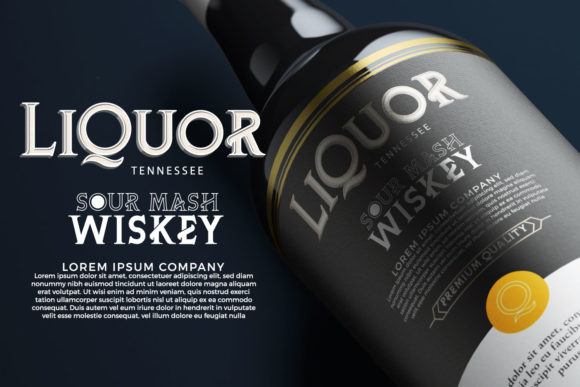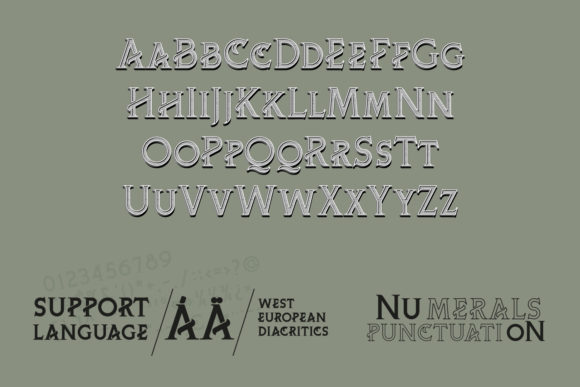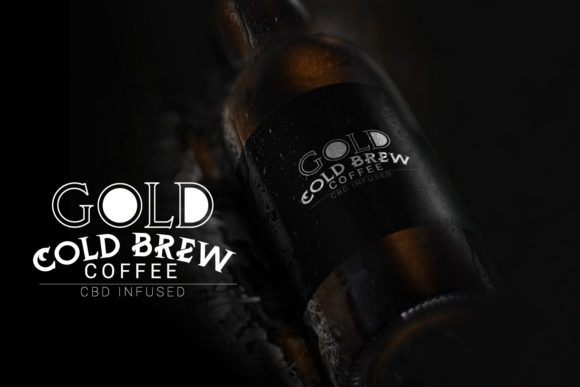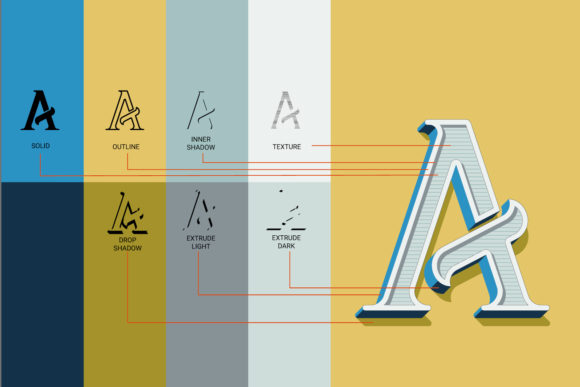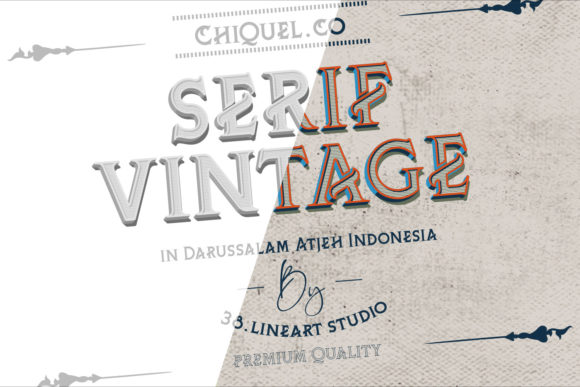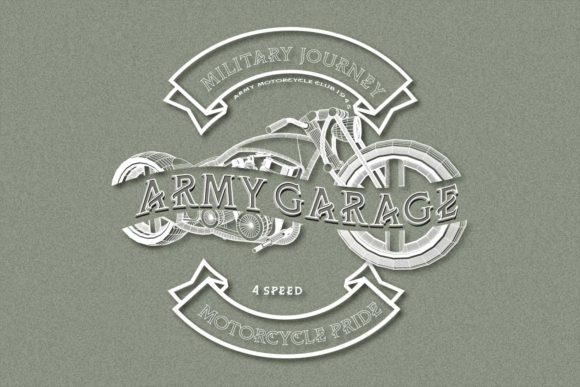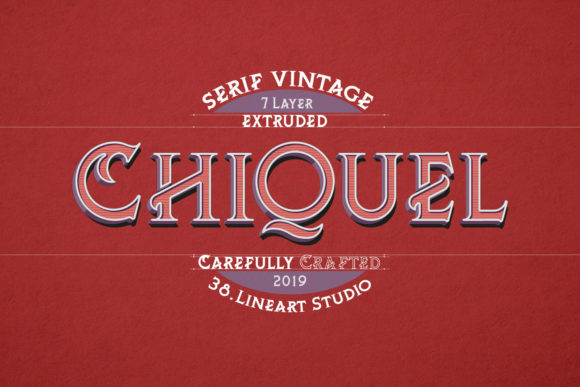
Introducing ChiQuel Serif Vintage Font: Elevate Your Designs with Timeless Elegance
Are you a designer or crafter looking for a font that can instantly elevate your designs and turn them into a piece of art? Look no further than ChiQuel Serif Vintage Font. This iconic serif font is a game-changer, offering beautiful letters that will add a touch of sophistication and elegance to any design project.
What is ChiQuel Serif Vintage Font?
ChiQuel Serif Vintage Font is a carefully crafted serif font that exudes a sense of nostalgia and classic charm. Its unique lettering style is reminiscent of vintage typography, making it perfect for designers who want to add a touch of timelessness to their work. Whether you’re working on a branding project, a wedding invitation, or a packaging design, ChiQuel Serif Vintage Font is sure to impress.
Key Features of ChiQuel Serif Vintage Font
- Beautiful Letters: Each letter in ChiQuel Serif Vintage Font has been meticulously designed to showcase intricate details and elegant lines.
- Iconic Serif Style: The font’s serif style is both classic and sophisticated, adding a touch of refinement to any design.
- Vintage Charm: ChiQuel Serif Vintage Font has a distinct vintage feel that will transport your designs back in time.
- Highly Versatile: This font can be used for a wide range of design projects, from branding and advertising to packaging and stationery.
Why Choose ChiQuel Serif Vintage Font?
With so many fonts available, why choose ChiQuel Serif Vintage Font? Here are just a few reasons why this font stands out from the rest:
- Unique and Eye-Catching: ChiQuel Serif Vintage Font is a one-of-a-kind font that will make your designs stand out from the crowd.
- Easy to Read: Despite its ornate details, ChiQuel Serif Vintage Font is highly legible, making it perfect for body text and headings.
- Scalable: This font can be scaled up or down without losing its elegance or clarity.
- Timeless Appeal: ChiQuel Serif Vintage Font has a timeless quality that will ensure your designs remain stylish for years to come.
How to Use ChiQuel Serif Vintage Font in Your Designs
Using ChiQuel Serif Vintage Font in your designs is easy. Here are a few tips to get you started:
- Pair it with a Sans-Serif Font: Pair ChiQuel Serif Vintage Font with a sans-serif font for a striking contrast.
- Use it for Headings and Titles: ChiQuel Serif Vintage Font is perfect for headings and titles, adding a touch of elegance to your designs.
- Experiment with Colors and Textures: Try pairing ChiQuel Serif Vintage Font with different colors and textures to create a unique look.